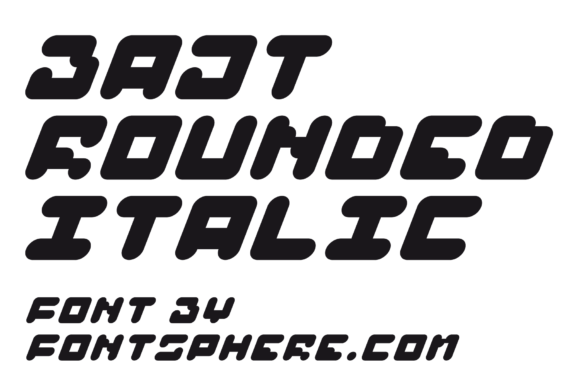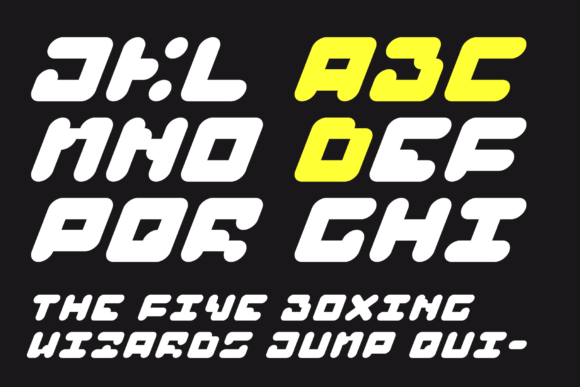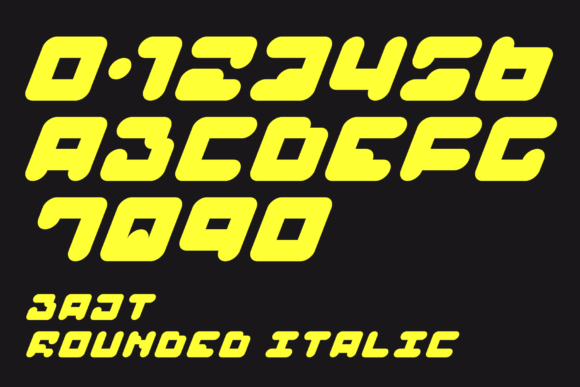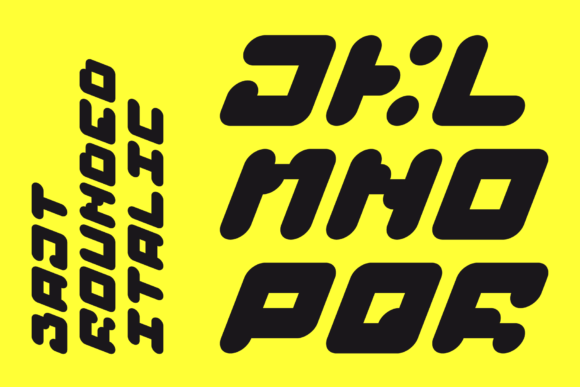
About Bajt Rounded Font
Bajt Rounded is a futuristic all caps display font featuring the perfect amount of trendiness. Whether you’re using it for crafting, digital designing, presentations or greeting cards making, it’s perfect!